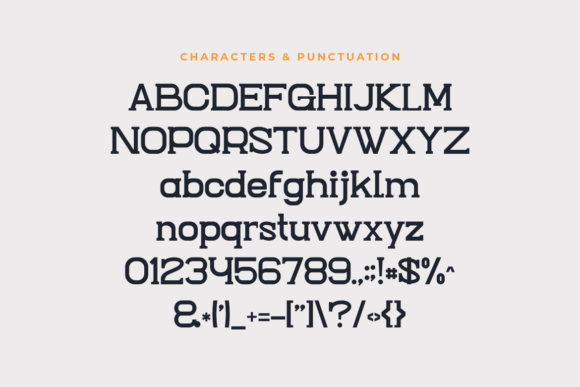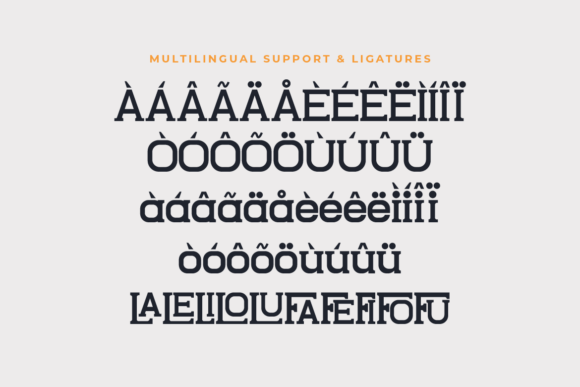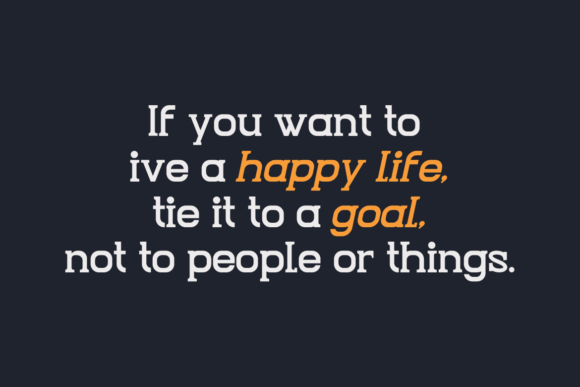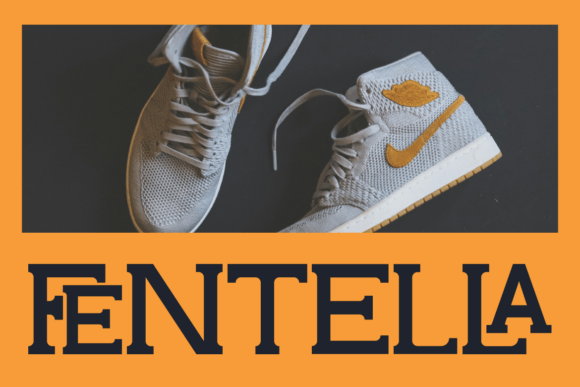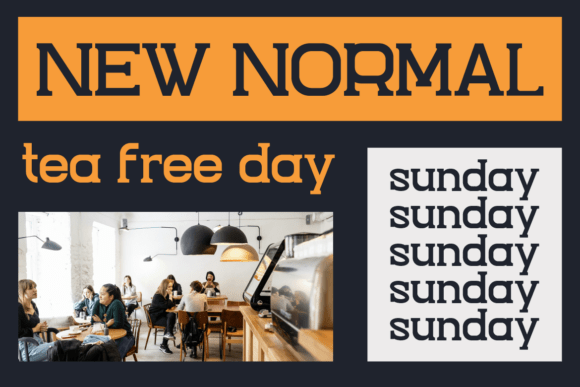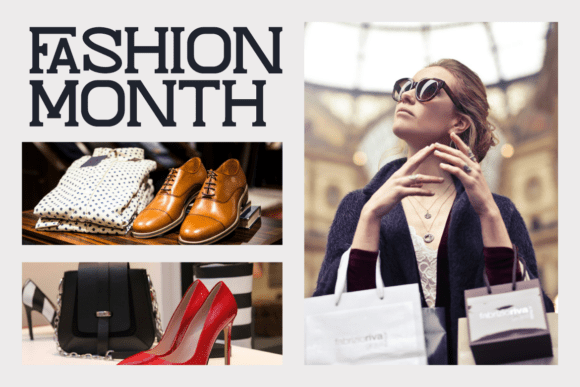
Introduction to Emano Font
Emano is a clean and contemporary slab serif font designed for designers who value simplicity and impact.
With its geometric precision and smooth curves, Emano delivers a professional yet stylish aesthetic that suits a wide range of creative projects .
Key Features of Emano Font